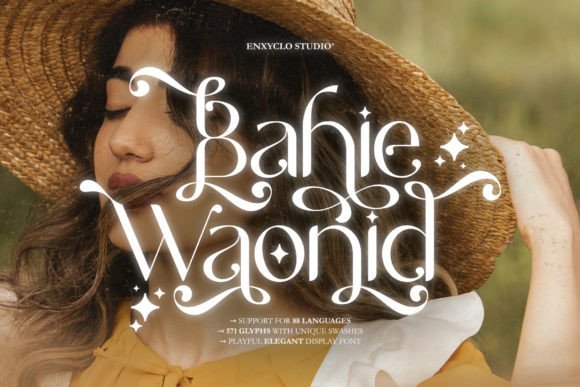
Bahie Waonid Font
Prepare to be captivated by the enchanting beauty of Bahie Waonid, a typeface that exudes elegance and sophistication. Its graceful serifs and timeless curves evoke a sense of romance and luxury, making it the perfect choice for designers seeking to elevate their creations with an air of understated charm.
Enter a world of limitless possibilities with Bahie Waonid, the font designed to transform your creative visions into breathtaking realities. Whether you're crafting breathtaking wedding invitations, captivating headlines, or simply adding a touch of sophistication to your branding, this font will effortlessly elevate your designs to new heights.
Indulge in the versatility of Bahie Waonid, a font that seamlessly adapts to any style or theme. From the allure of vintage posters to the sleekness of modern websites, its versatile nature ensures that your designs will stand out with timeless allure.
Experience the joy of effortless creativity with Bahie Waonid. Its PUA encoding provides seamless access to a world of glyphs and swashes, empowering you to add intricate details and flourishes that will captivate your audience.
Embrace the power of typography with Bahie Waonid, the font that will ignite your imagination and unleash your limitless creative potential. Join the ranks of discerning designers who recognize the transformative power of this elegant and versatile typeface.